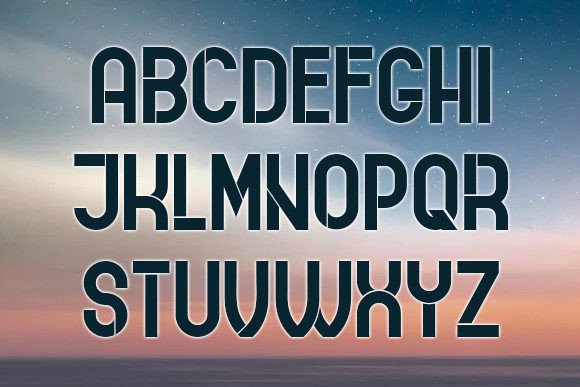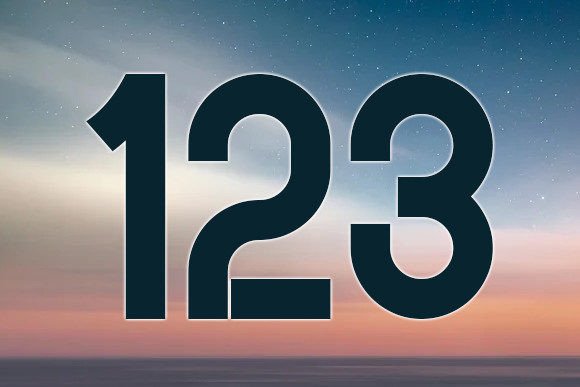
Introduction to Indirect Implication Font
Indirect Implication is an elegant font that will instantly enhance your designs.
Use this font on posters, flyers, and t-shirts .
Key Features of Indirect Implication Font
Why Choose Indirect Implication Font?
Indirect Implication Font offers exceptional quality and versatility, making it a valuable addition to your design toolkit. Whether you’re creating for personal projects or commercial use, Indirect Implication Font delivers professional results.